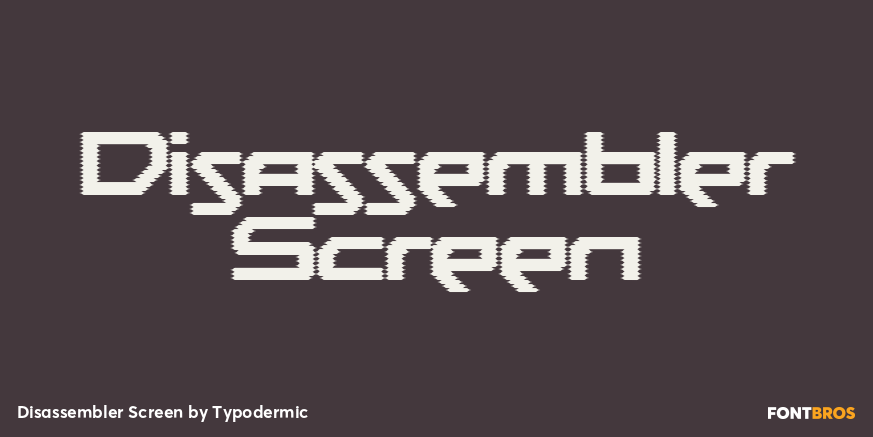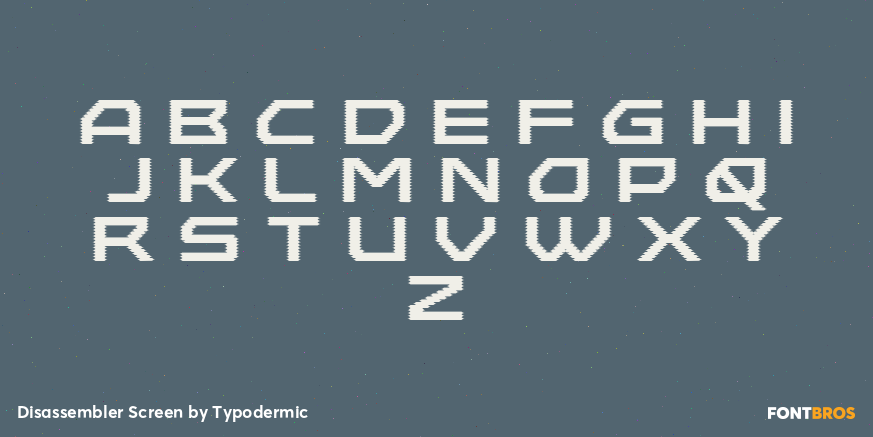
Disassembler Screen
Buy NowDisassembler Screen subjects the family’s letters to a strong display texture, making words look scanned, interrupted, or transmitted through electronic hardware. The horizontal rhythm is especially effective at sizes where the gaps become visible components of the image.
Use Screen for surveillance stories, intercepted-signal graphics, electronic-warfare exhibits, retro display history, incident-response campaigns, title sequences, and full-width website headlines. Pair it with a more solid Disassembler style when the same identity needs to shift between a clean source and a compromised transmission.